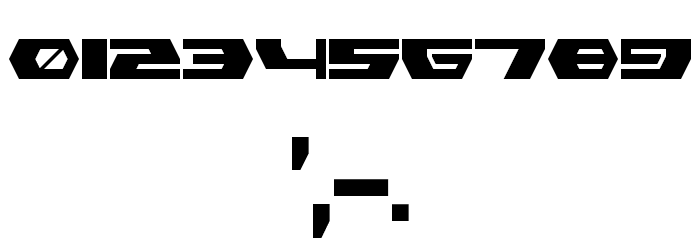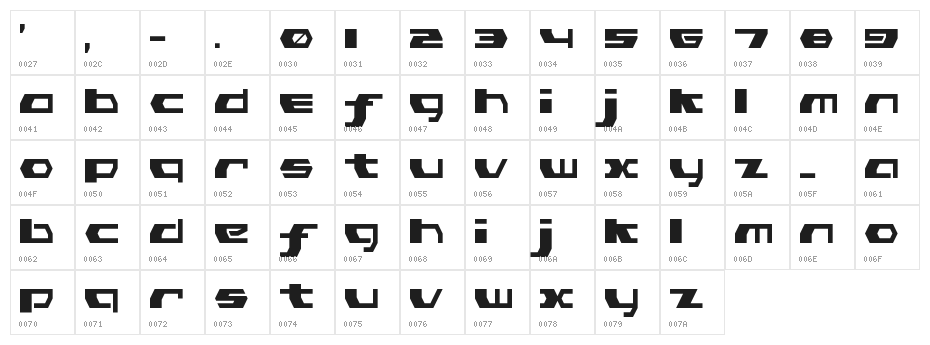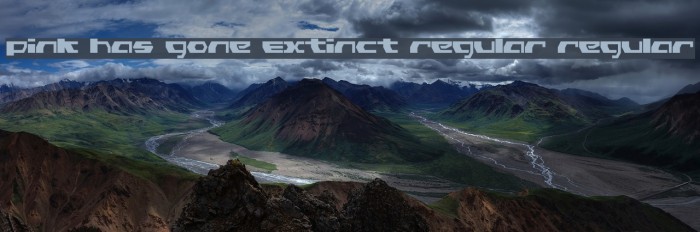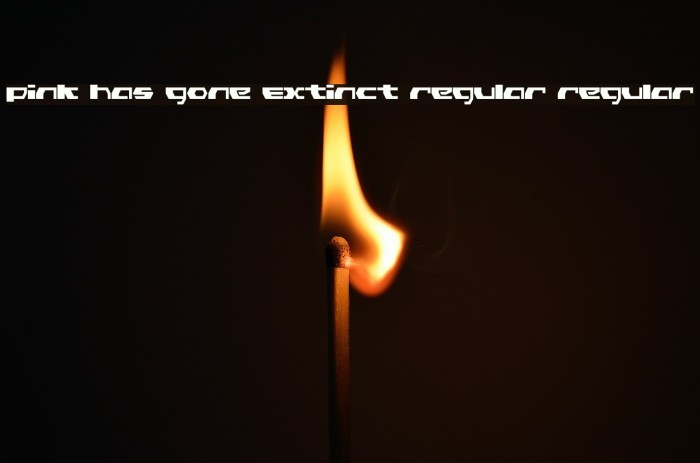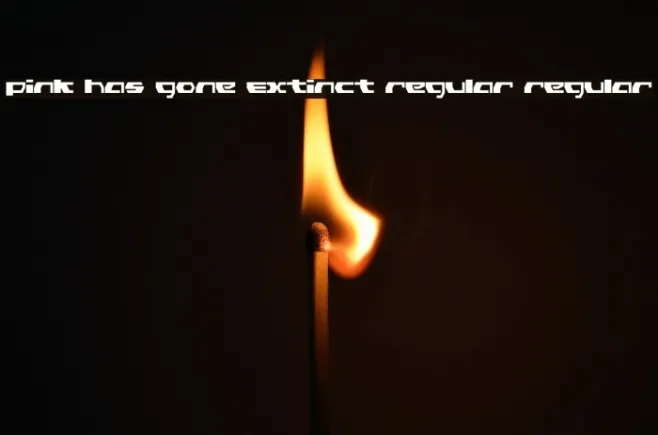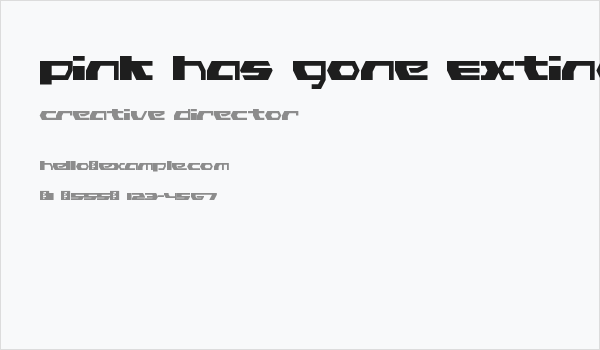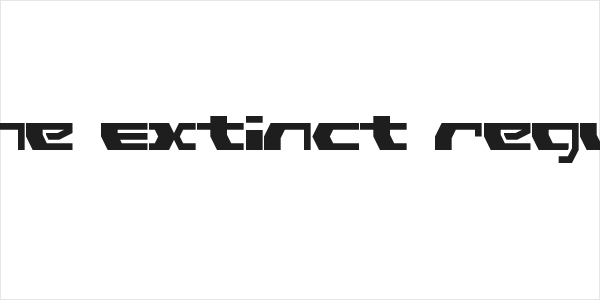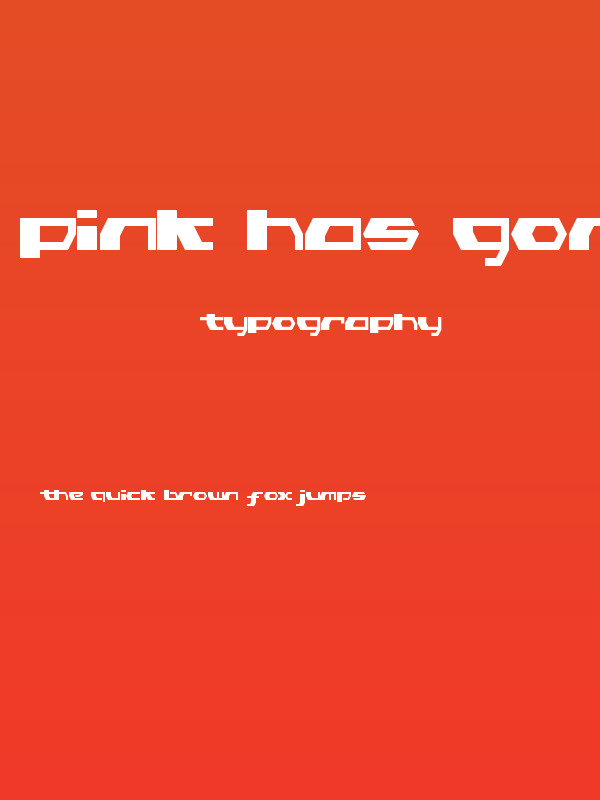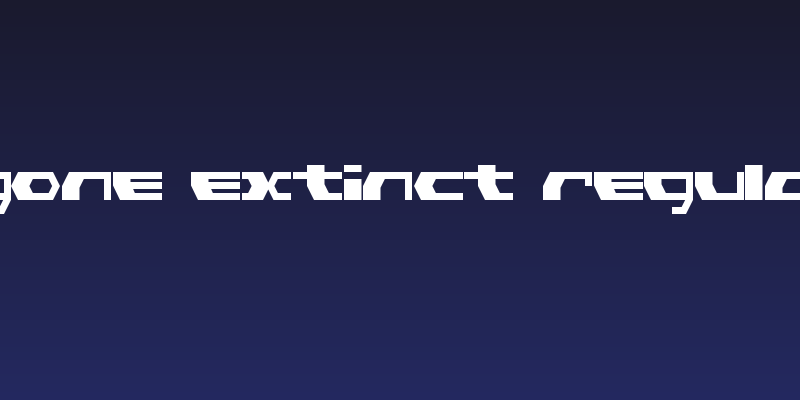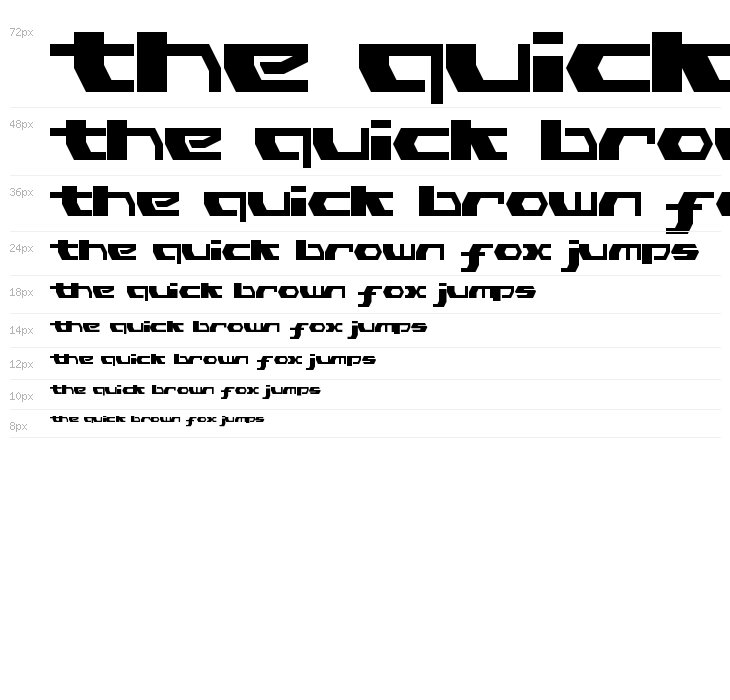
Pink Has Gone Extinct Regular Font
Pink Has Gone Extinct Regular Description
This font features a bold, geometric design with sharp angles and a futuristic aesthetic. The characters are constructed with a blocky, angular style that gives it a distinct, modern look. The uppercase and lowercase letters maintain a consistent structure, emphasizing a uniform appearance across the alphabet. Numbers and special characters follow the same design principles, ensuring a cohesive visual identity. The font's unique style makes it stand out, suitable for projects that require a strong, impactful presence.
Overall StyleFuturistic
Proposed ProjectsIdeal for sci-fi themed projects, video game titles, tech branding, and modern posters.